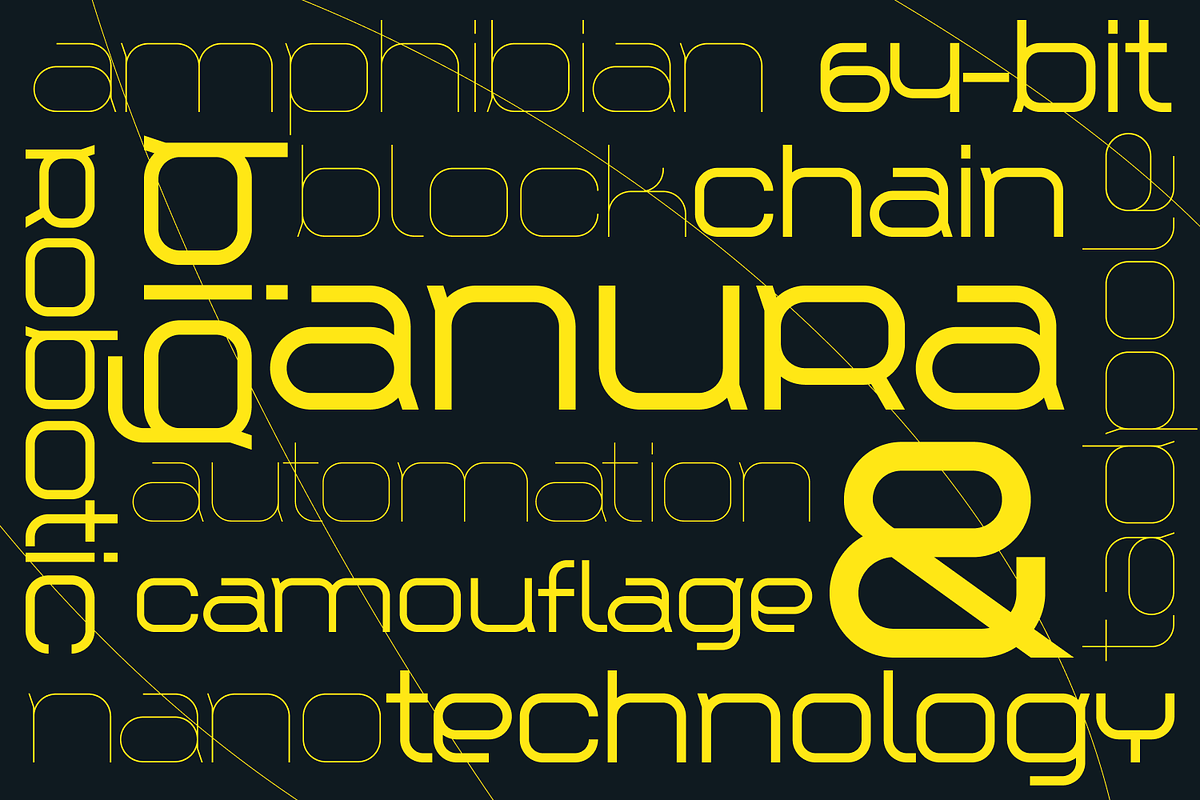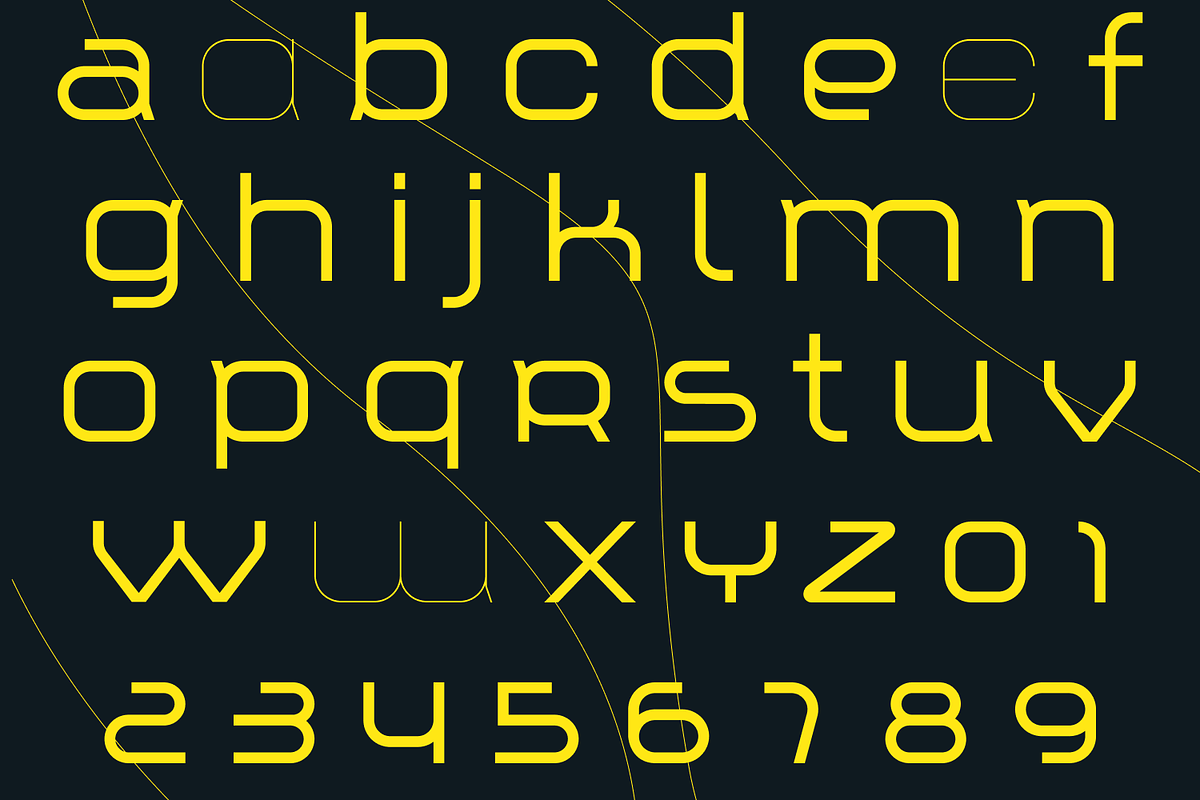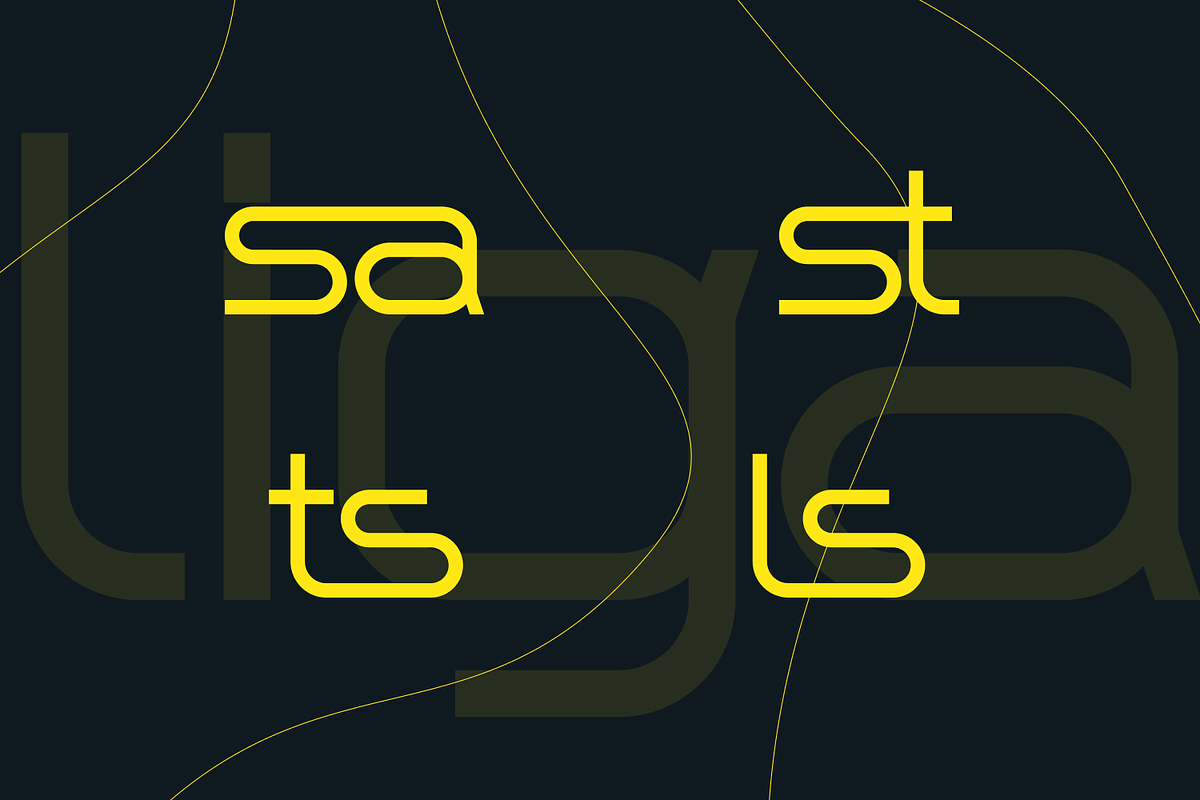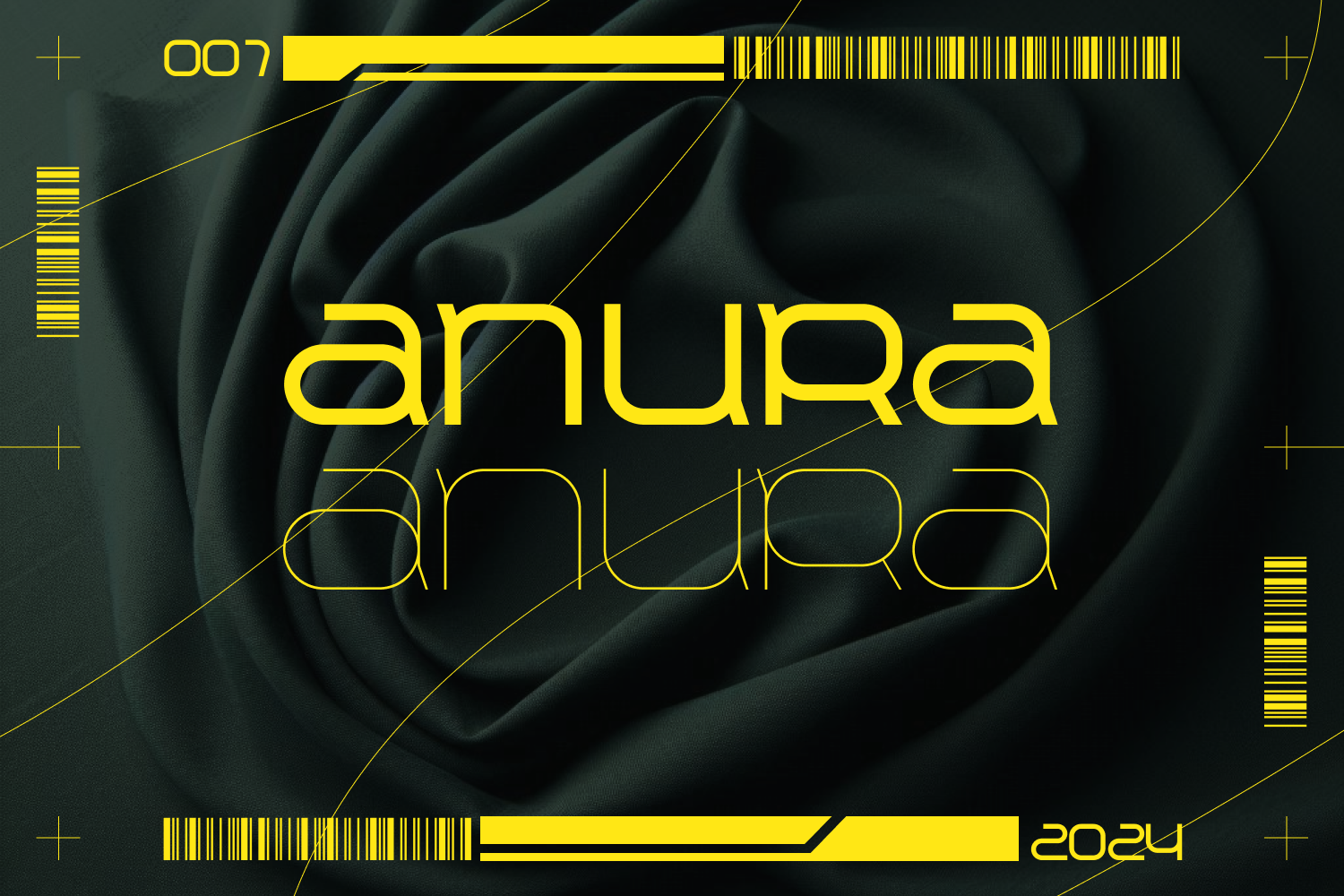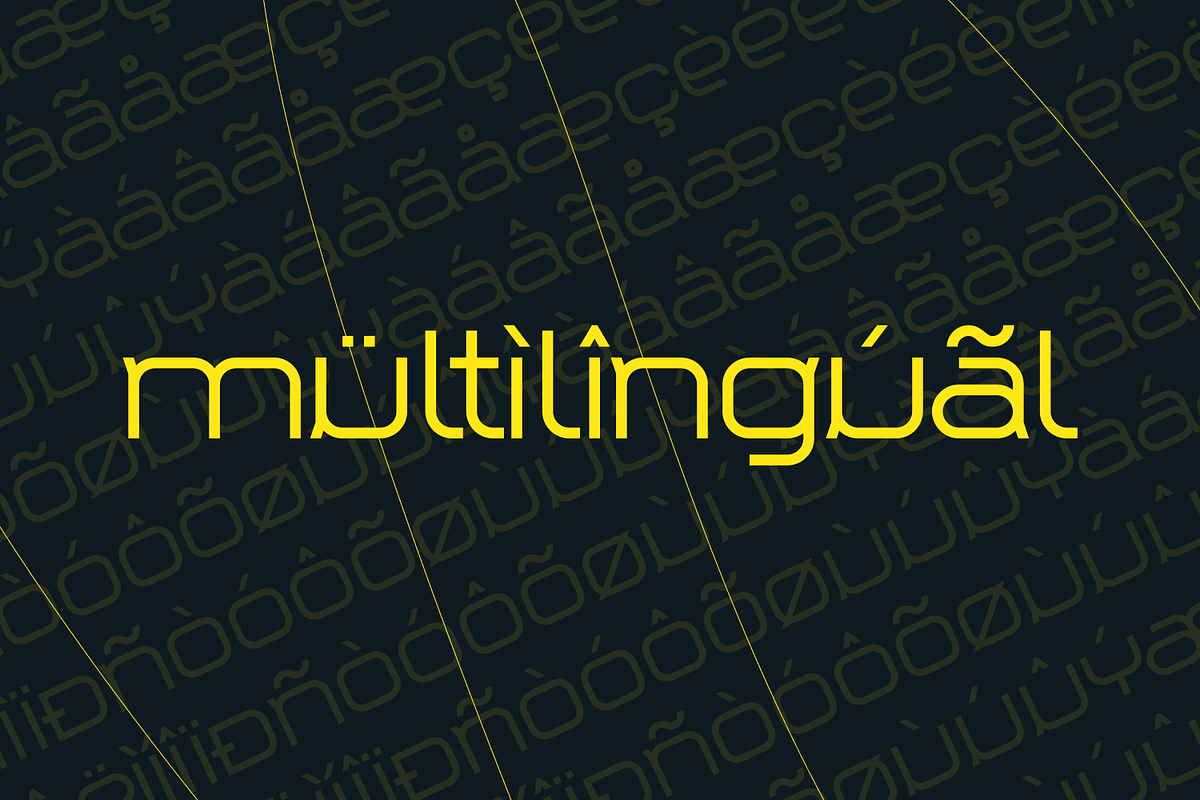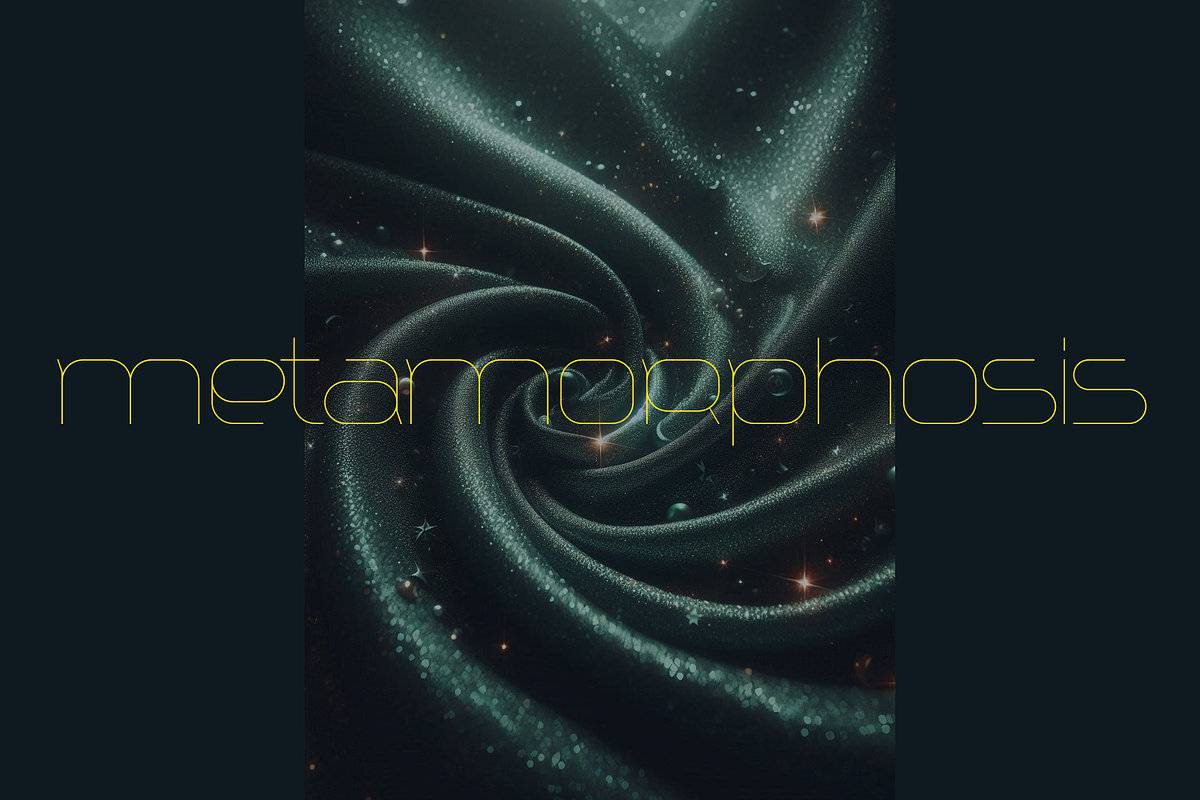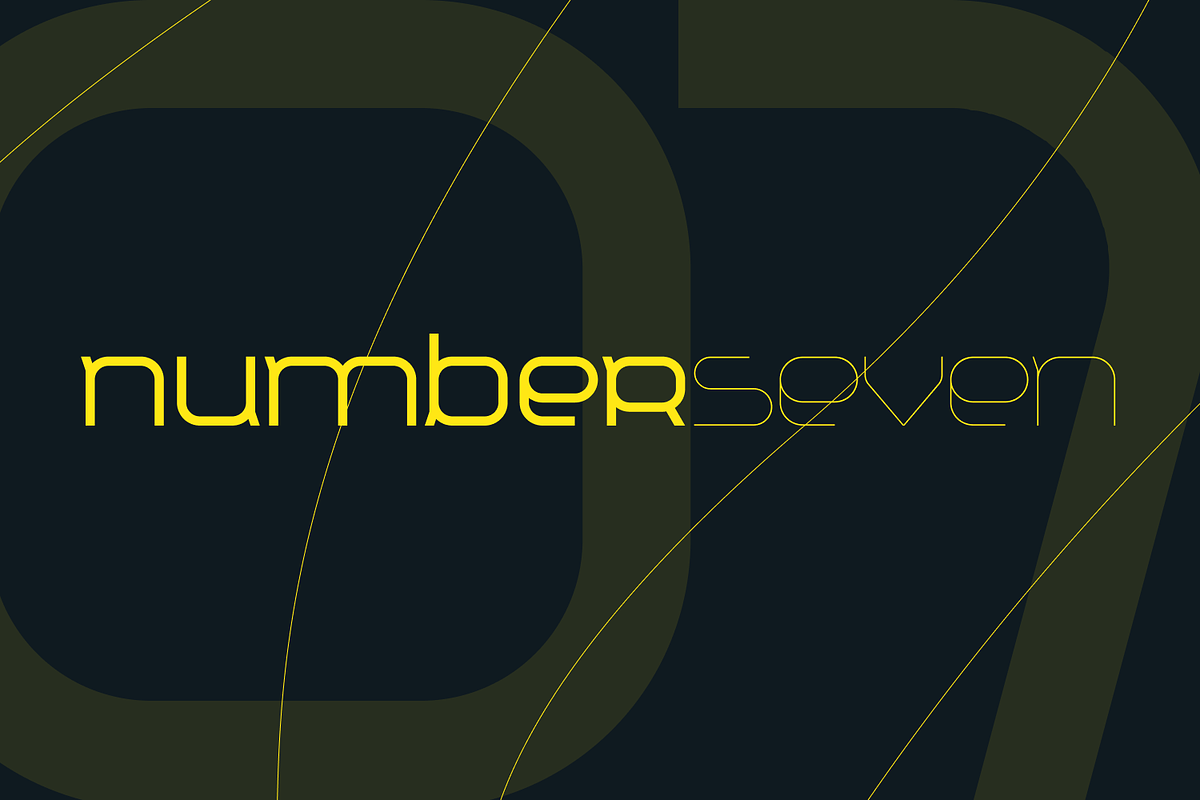
Anura Font
Introducing Anura, a sleek and contemporary font family that merges the essence of modern design with a futuristic flair. The Anura family includes two distinct styles: Regular and Thin, each crafted to bring a unique elegance and clarity to your projects.
Anura Regular offers a balanced and robust appearance, ideal for headlines, branding, and any content that demands attention and readability. Its clean lines and geometric precision create a professional yet approachable feel, making it versatile for a wide range of applications.
Anura Thin provides a lighter, more delicate option, perfect for adding a touch of sophistication and modernity to your designs. The thin strokes maintain the font’s futuristic aesthetic while offering an airy and minimalist look, ideal for subtle accents, detailed logos, and refined typographic compositions.
Whether you’re designing for digital interfaces, print media, or corporate branding, Anura’s modern futuristic style will elevate your work with its distinctive and stylish presence. Embrace the future of typography with Anura.